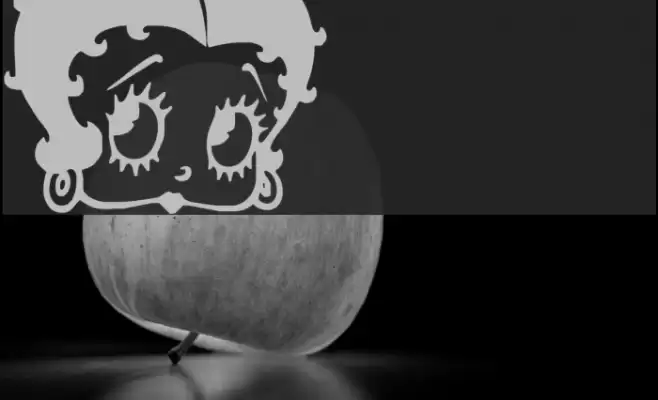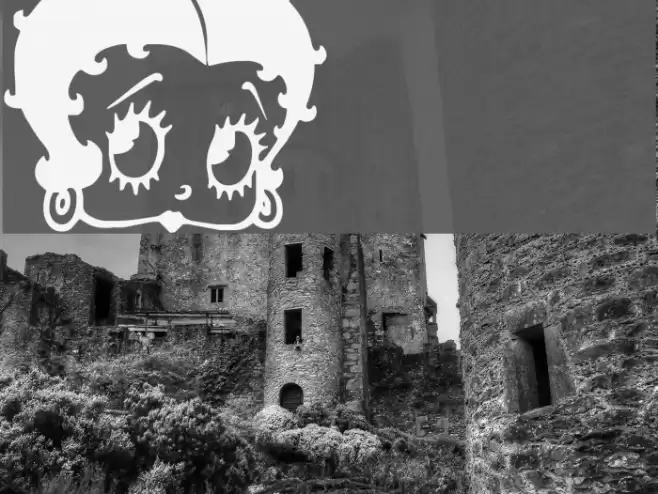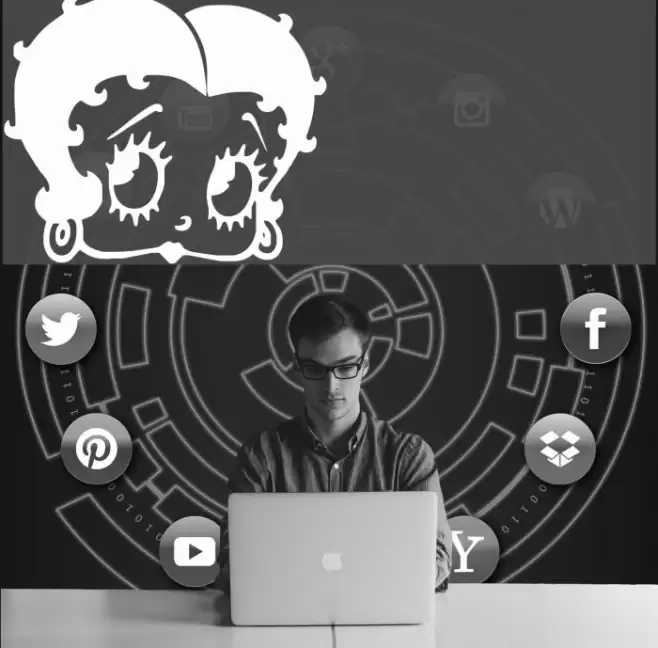
Grim Natwick Betty Font
Grim Natwick Betty Description
A playful, cartoon-style font featuring exaggerated, rounded letterforms with thick and thin strokes, mimicking classic animation title cards. The characters have a whimsical, hand-drawn feel with distinctive curls and loops.
Whimsical, cartoon-inspired font with playful, rounded letterforms from Cartoon fonts.
- Proposed Projects: Comic books, animation titles, children's books, playful branding, and retro-themed designs.
- Contrast: High
- Overall Style: Vintage cartoon
- Use Case: Headlines, logos, display text